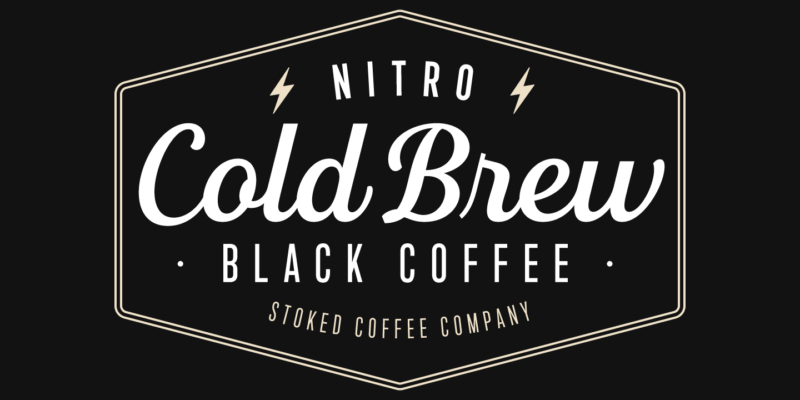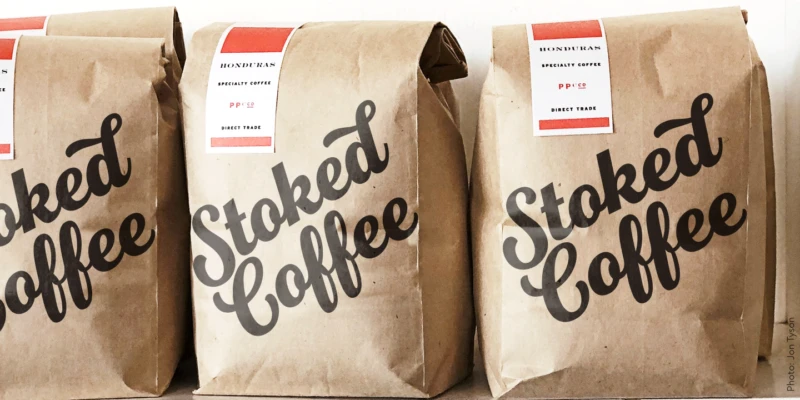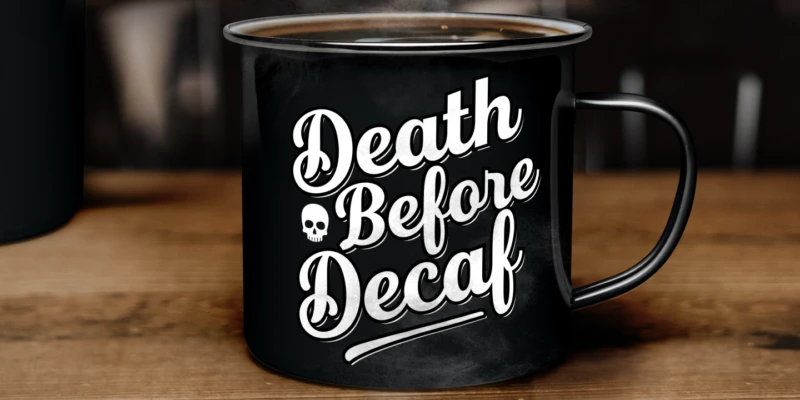
Fourth Font Family
Fourth is a contemporary roundhand script with a classic feel. It draws inspiration from classic Americana — baseball scripts, sign painting and branding. The family consists of seven weights with ornament extras for good variety in layout and logo development. The forms are rational and refined for consistency and legibility. Contextual alternates are included for smooth initial and ending forms. Stylistic alternates are available for the commonly substituted forms; s, r, l, f, k, and z. Fourth also features Swash capitals, swash lowercase, underlines and catchwords for custom styling.
Fourth Bold —
The Presserie
Fourth Thin —
Organic Greens
Fourth Regular —
Blue Cocoa
Fourth Black —
Almondmilk
In-Use
Fourth font by J Foundry — the words “Stoked Coffee” in a connected script, with a label above reading “HONDURAS SPECIALTY COFFEE”
Fourth font by J Foundry — a black hexagonal badge with a thin double-line border, containing the upright sans-serif word “NITRO” flanked by lightning bolt icons, the connected script words “Cold Brew”, the upright sans-serif words “BLACK COFFEE” with dot separators, and the italic sans-serif words “STOKED COFFEE COMPANY”
Fourth font by J Foundry — a black mug with the white script words “Death Before Decaf” and a small skull icon, with a swash underline below “Decaf”
Fourth font by J Foundry — the word “Brewed” in a large, upright, connected script, and below it the word “Slowwwwly” in a smaller, connected script, with a white teardrop icon to the left of the lower word
Swash caps
Alternate forms
Swash Y, m
Swash O, g
Alternate r
Catchwords
Underlines
Contextual alternates
Icons